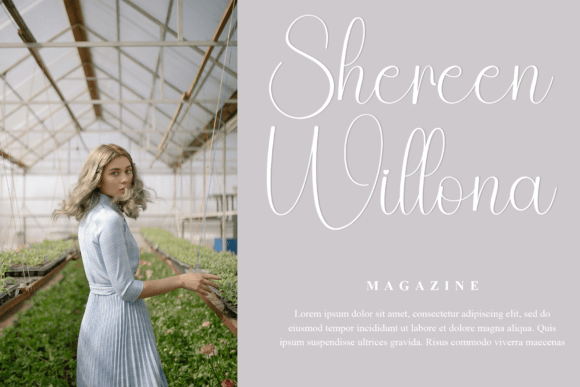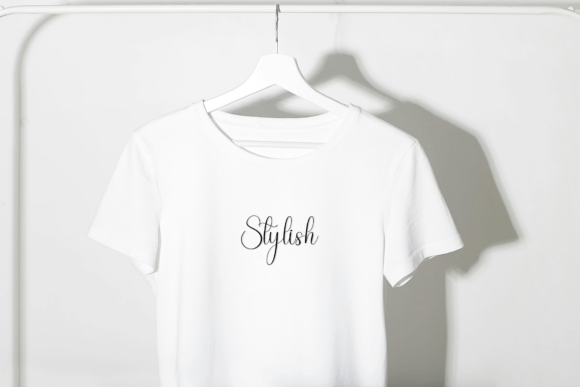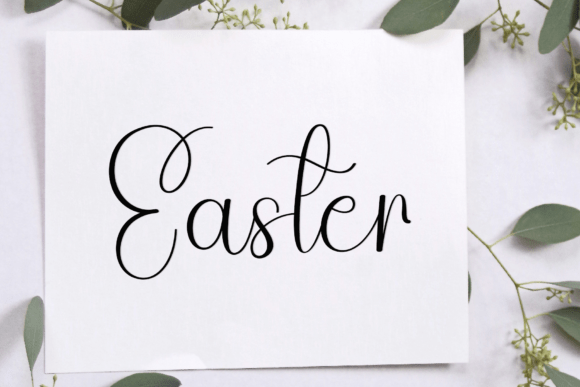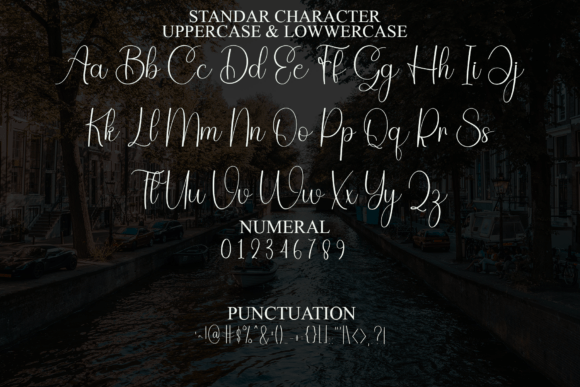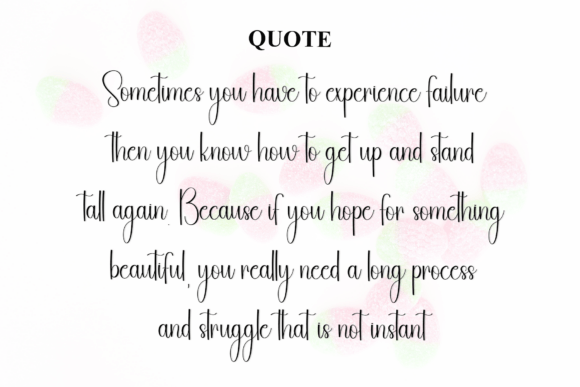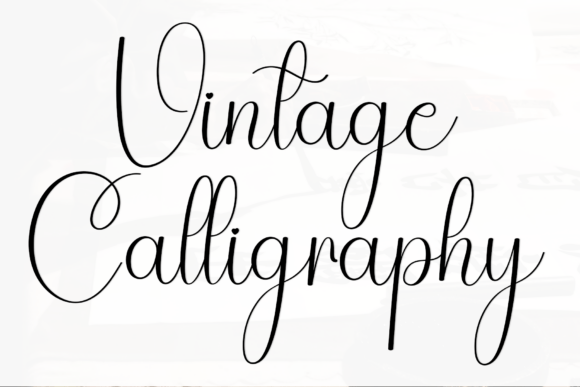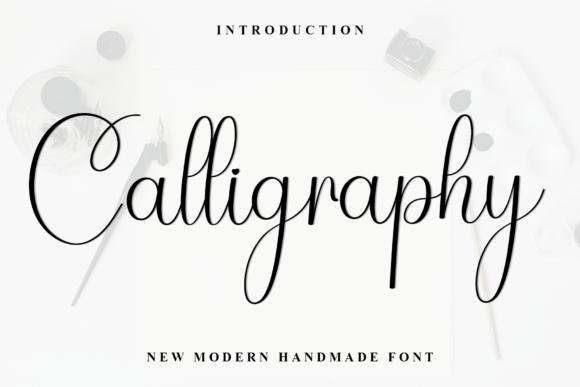
Discover the Beauty of Calligraphy Font: Elevate Your Designs with Elegance
Calligraphy is a stunning and captivating font that has been designed with a soft, unique touch, making it a perfect addition to any design project. Its distinctive strokes give it a special character, rendering it meaningful and versatile for future use. With a wide range of characters, Calligraphy Font is an excellent choice for designers, crafters, and creative enthusiasts looking to add a touch of elegance to their work.
The Unique Charm of Calligraphy Font
Calligraphy Font boasts a distinctive and eye-catching appearance, setting it apart from other font styles. Its soft, flowing strokes are carefully crafted to create a beautiful and harmonious visual experience. The font’s unique character makes it perfect for a wide range of design projects, from creative crafts to artistic endeavors. Whether you’re working on a logo, poster, or social media graphic, Calligraphy Font is sure to make your design stand out.
One of the most significant advantages of Calligraphy Font is its versatility. With a vast array of characters, you can experiment with different combinations to create unique and captivating designs. The font’s flexibility makes it suitable for various applications, including:
- Design projects: logos, posters, brochures, and more
- Crafts: handmade cards, scrapbooking, and DIY projects
- Artistic endeavors: illustrations, paintings, and digital art
- Digital media: social media graphics, blog posts, and website headers
The Benefits of Using Calligraphy Font
By incorporating Calligraphy Font into your design projects, you can:
- Enhance your designs with a touch of elegance and sophistication
- Make your work more appealing to a wide range of audiences
- Stand out in a crowded market with unique and captivating visuals
- Explore new creative possibilities with a versatile font style
Calligraphy Font is a beautiful and eye-catching font designed to elevate your designs with elegance and sophistication. Its unique character, versatility, and compatibility make it an excellent choice for designers, crafters, and creative enthusiasts. With Calligraphy Font, you can unlock new creative possibilities and take your designs to the next level. So why wait? Discover the beauty of Calligraphy Font today and experience the difference it can make in your work.